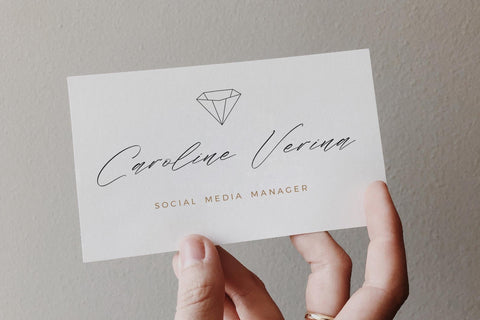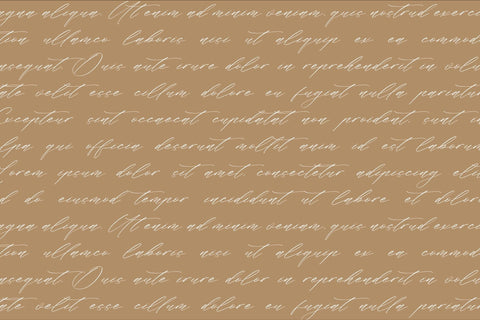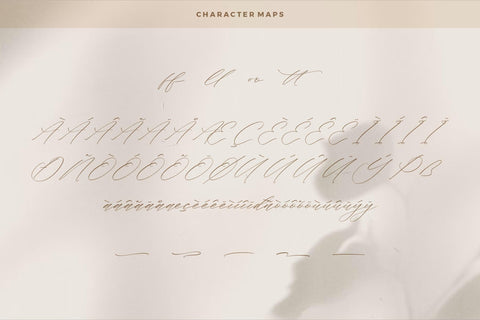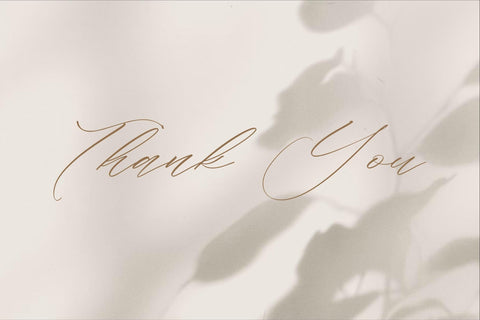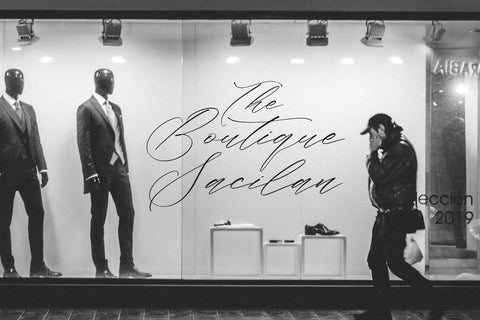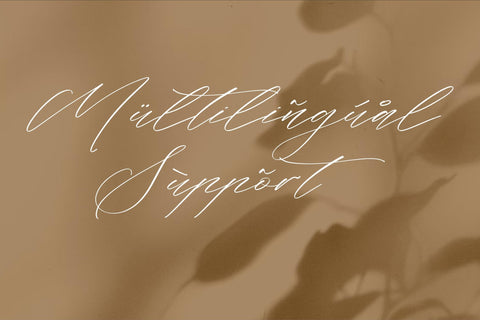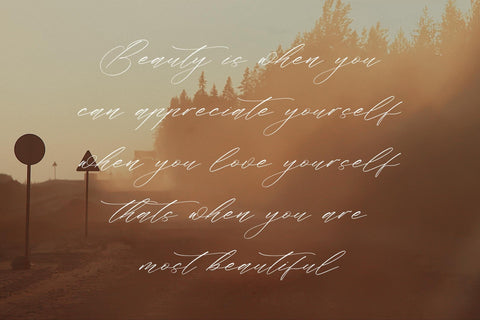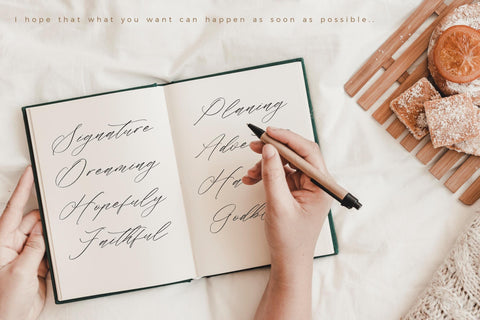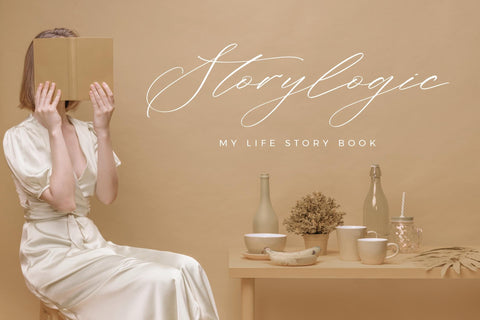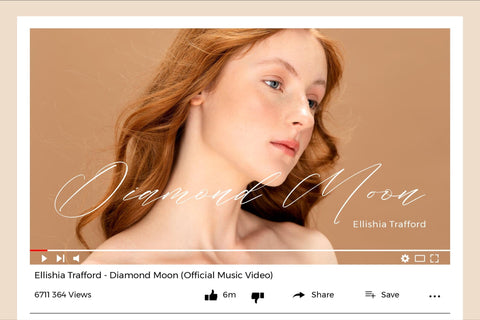
Flumtips Noulevia - Chic Calligraphy Font
Proudly present Flumtips Noulevia - Chic Calligraphy Font , created by Storytype,
A luxury script that has own unique style & modern look.